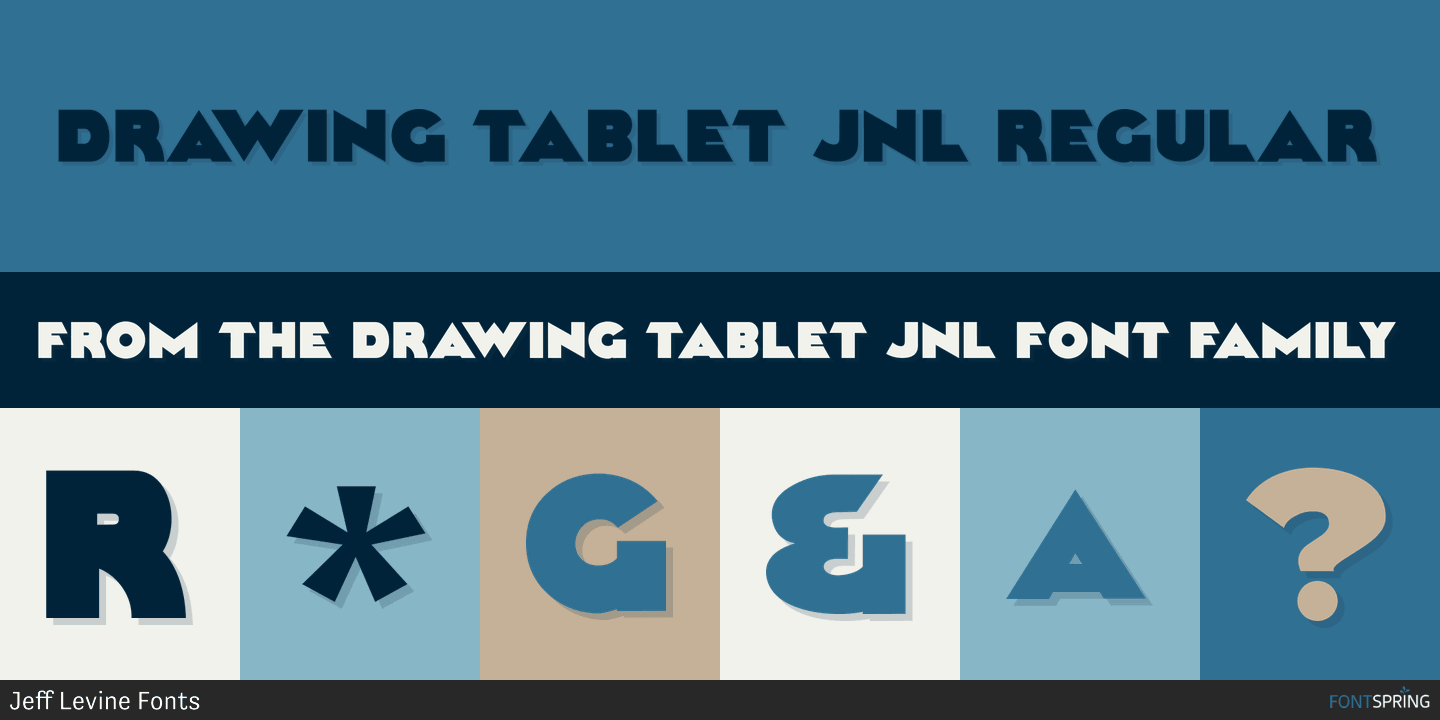
Drawing Tablet Jnl Font . Download drawing tablet jnl regular font. Votes, rated based on results identification. What fonts are similar to drawing tablet jnl? Examples and download link for the drawing tablet jnl font designed by jeff levine in 2011. Fonts have been added to your font request. Has been added to list. 100 free fonts alternatives to drawing tablet jnl It is reminiscent of the popular deco typefaces of. Has been added to your font request. Drawing tablet jnl is a display sans font published by jeff. Download—the font meta search engine with more than 50,000 font styles to find and order. Has been added to request.